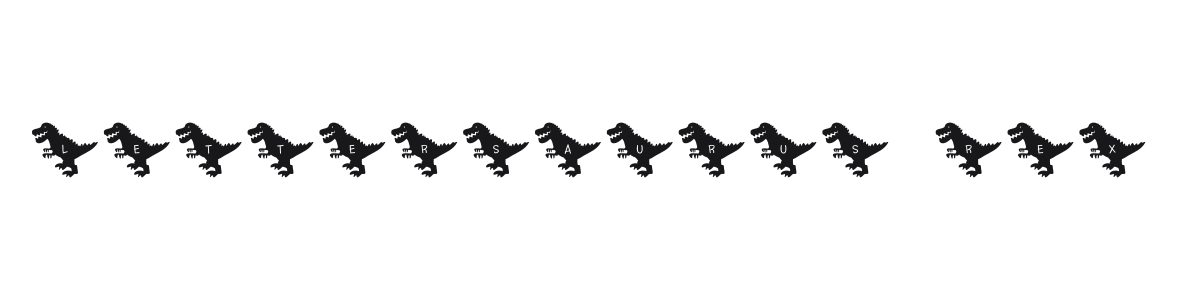
Lettersaurus Rex
Lettersaurus Rex is a dingbat font where every letter of the alphabet rides on the back of a T-rex dinosaur silhouette. Each glyph is a chunky black prehistoric creature with its corresponding letter stamped on its side. It also includes a blank T-rex via the underscore and a footprint glyph on the asterisk key.